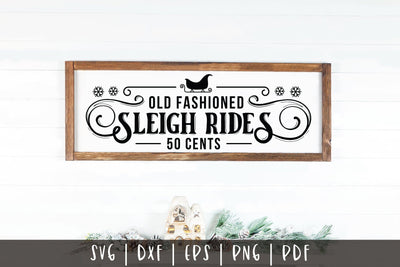
Old Fashioned Sleigh Rides - Vintage Christmas SVG
Deck the halls with timeless beauty using our Vintage Christmas Sign SVG design. Craft decorations that pay homage to the vintage Christmases.
Deck the halls with timeless beauty using our Vintage Christmas Sign SVG design. Craft decorations that pay homage to the vintage Christmases. Use it for creating vintage style signs, wall decals, farmhouse signs, home signs, and more.